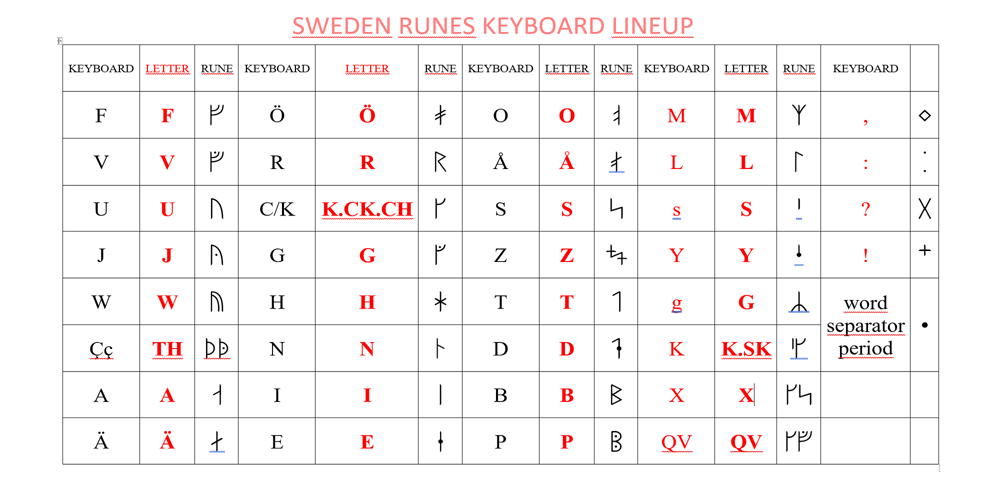
Ongunkan Swedish Runes Font Family was designed by Osman Nuri ALKAN and published by Runic World Tamgacı. Ongunkan Swedish Runes contains 1 styles and family package options. Swedish Runes is a way to write Swedish with medieval runes devised by Sven Salvenson. Proto-Norse was written with Elder Futhark runes, and viking age runes were in Younger Futhark (an adaptation of Elder Futhark). Then early Old Norse was written in medieval runes (an adaption of Younger Futhark). Sven decided to carry on that tradition and adapt the medieval runic alphabet for modern Swedish.General information can be found on this site.I used the data here while working on the font.https://omniglot.com/conscripts/swedishrunes.htm